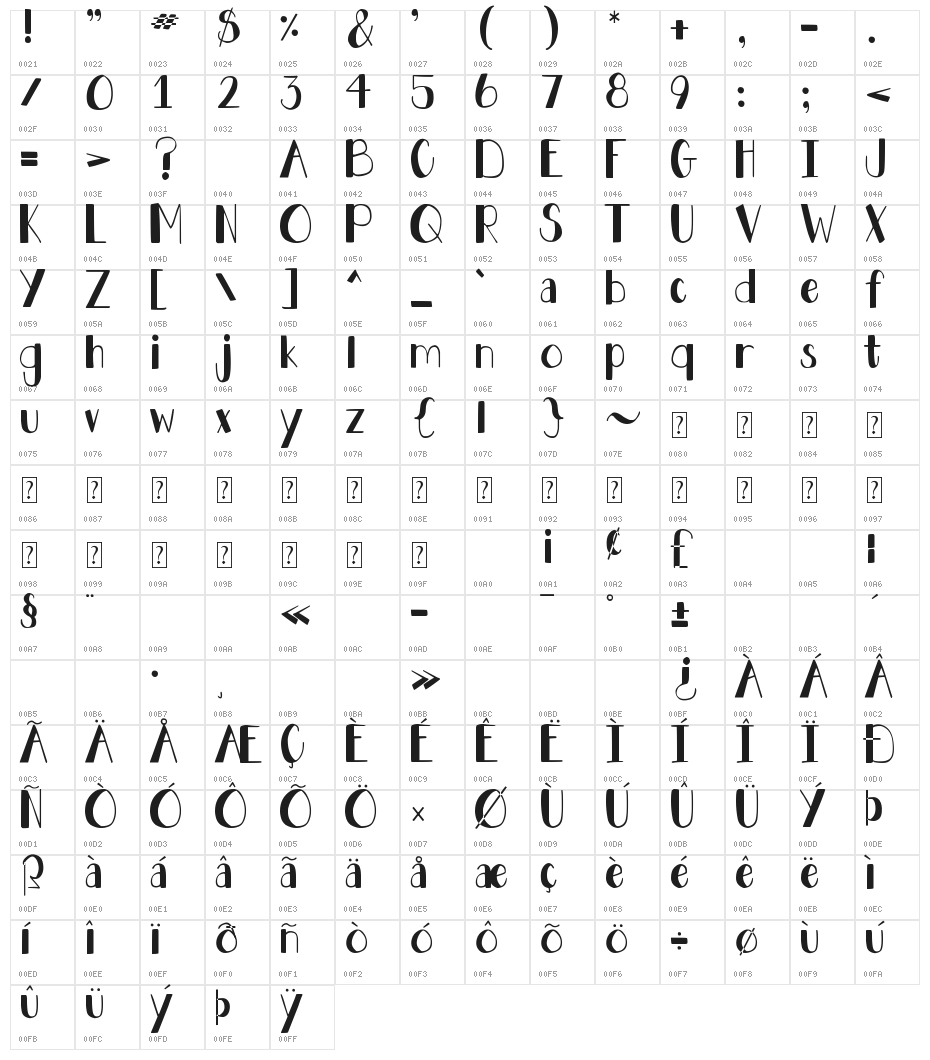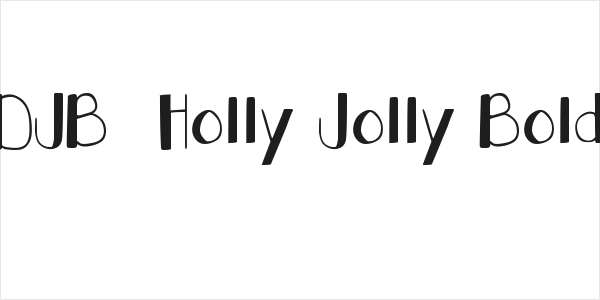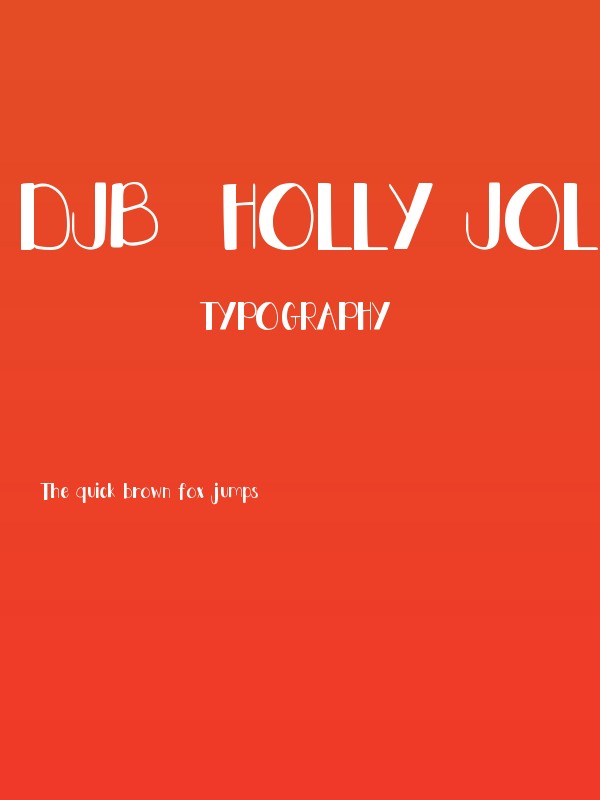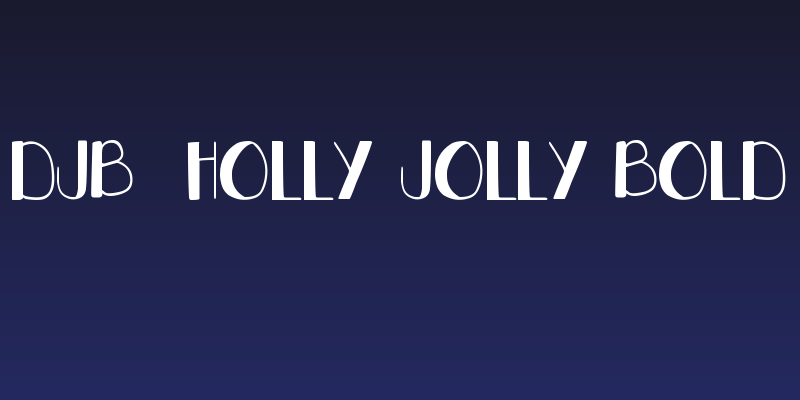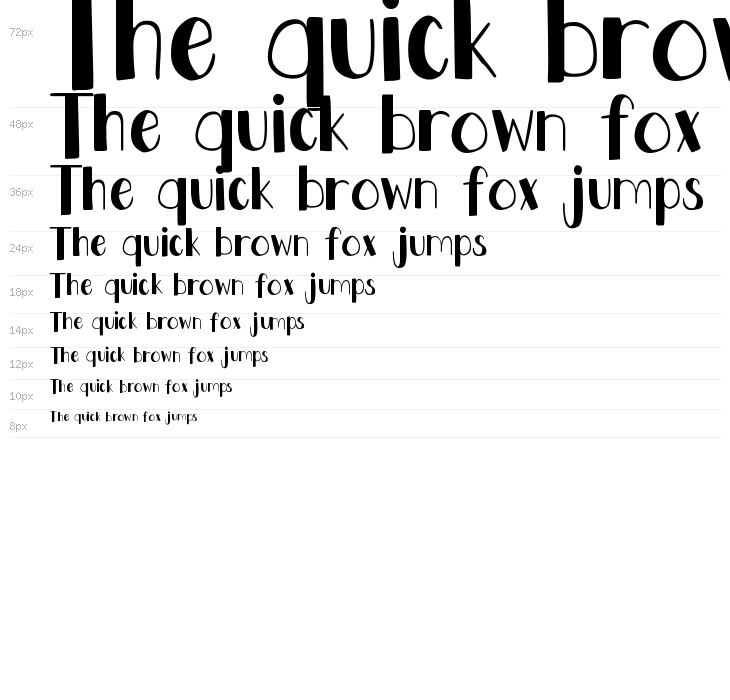
DJB Holly Jolly Bold Font
DJB Holly Jolly Bold Description
| Proposed Projects | Ideal for holiday cards, children's books, playful branding, and festive invitations. |